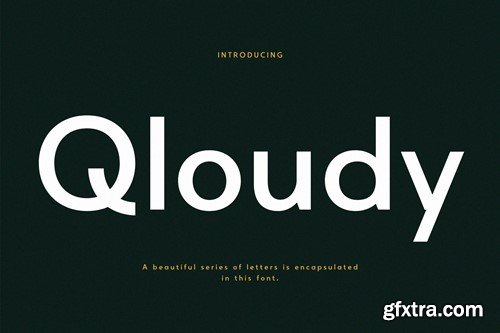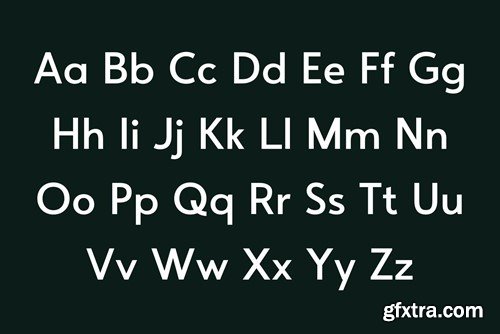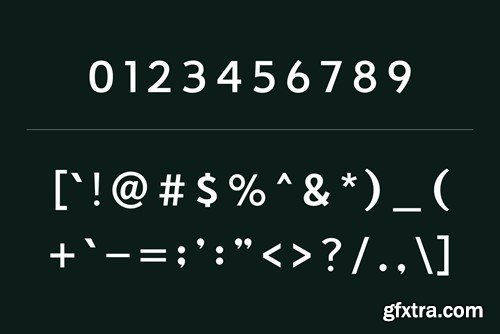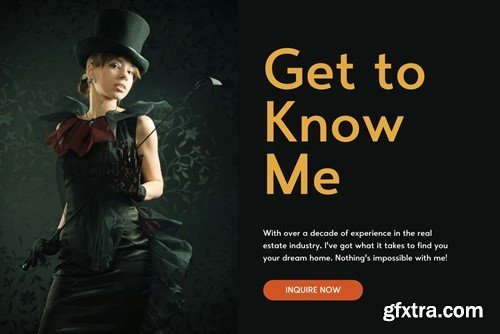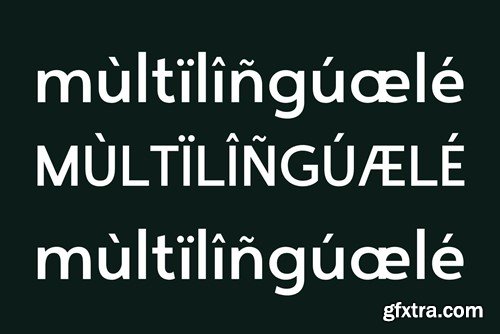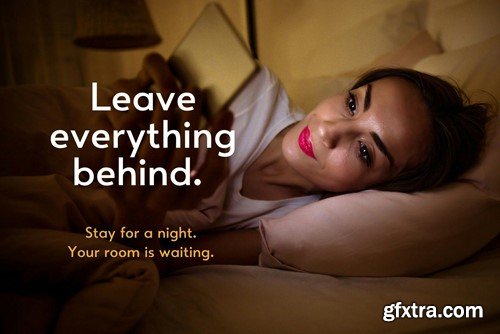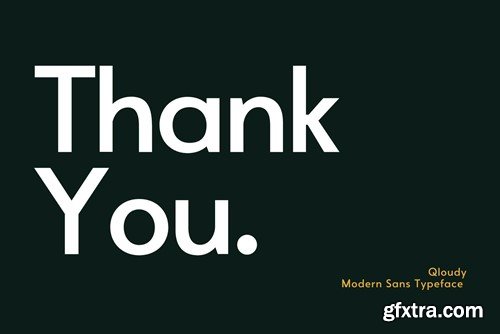
Qcloudy Modern Sans Font MB2K3XK
A beautiful series of letters is encapsulated in this 'Qloudy' font. Neat lettering is perfect for writing needs that are modern and pleasing to the eye, there is a Modern impression but still looks Elegant when used for writing. Tidiness in the manufacture of each letter, is our top priority. You can have fun and be creative using this font product we made, because the results will definitely be very satisfying. What's Included: OTF/TTF/WOFF Files Character standards Numerals & Punctuation Accented Characters (West Europe) Works on PC & Mac Recommended using Adobe Illustrator or Adobe Photoshop. Wish you enjoy our font and if you have any questions, don't hesitate to drop a message & I'm happy to help :) This font is ready to be used to support your next design needs. Thank You!